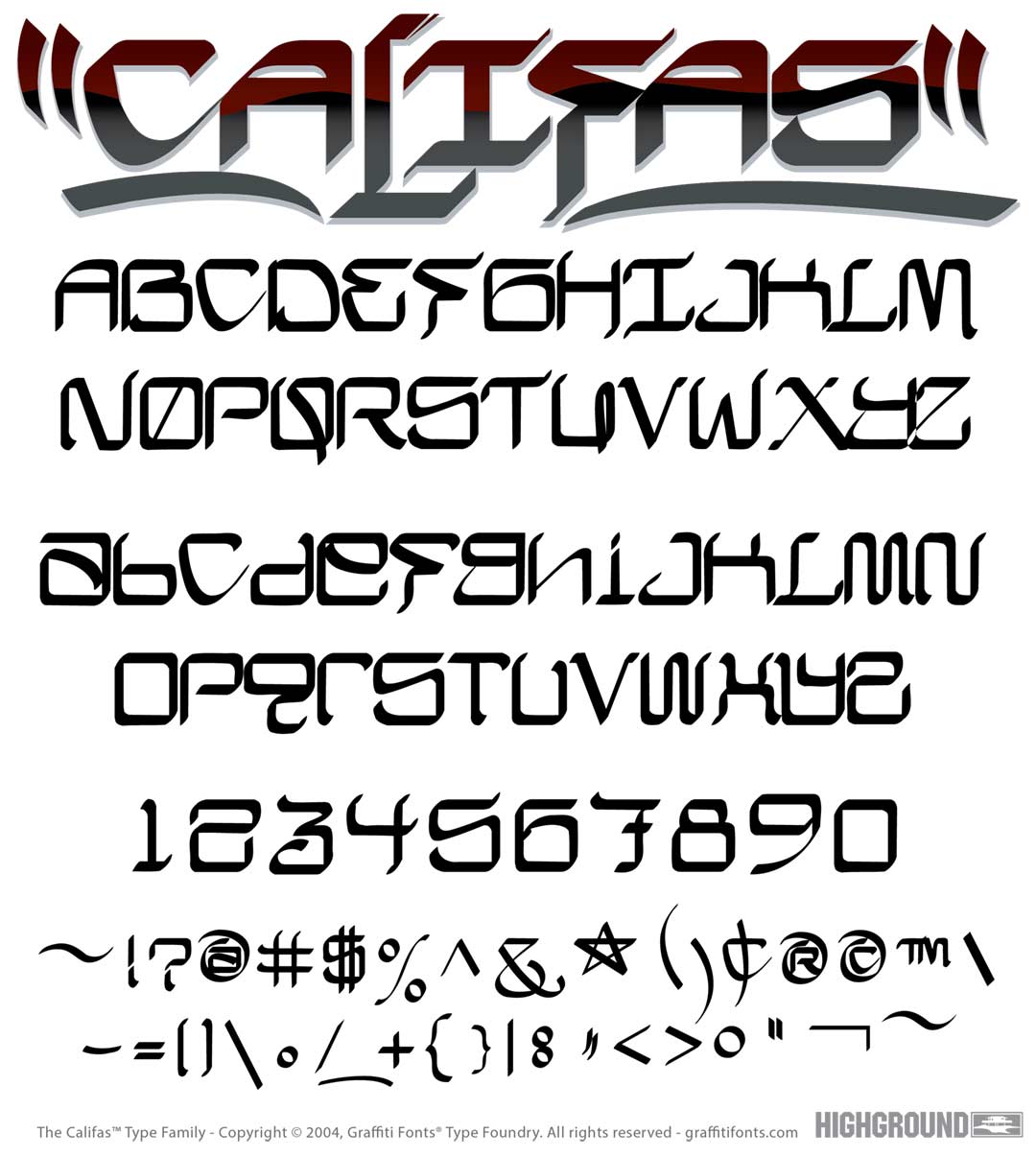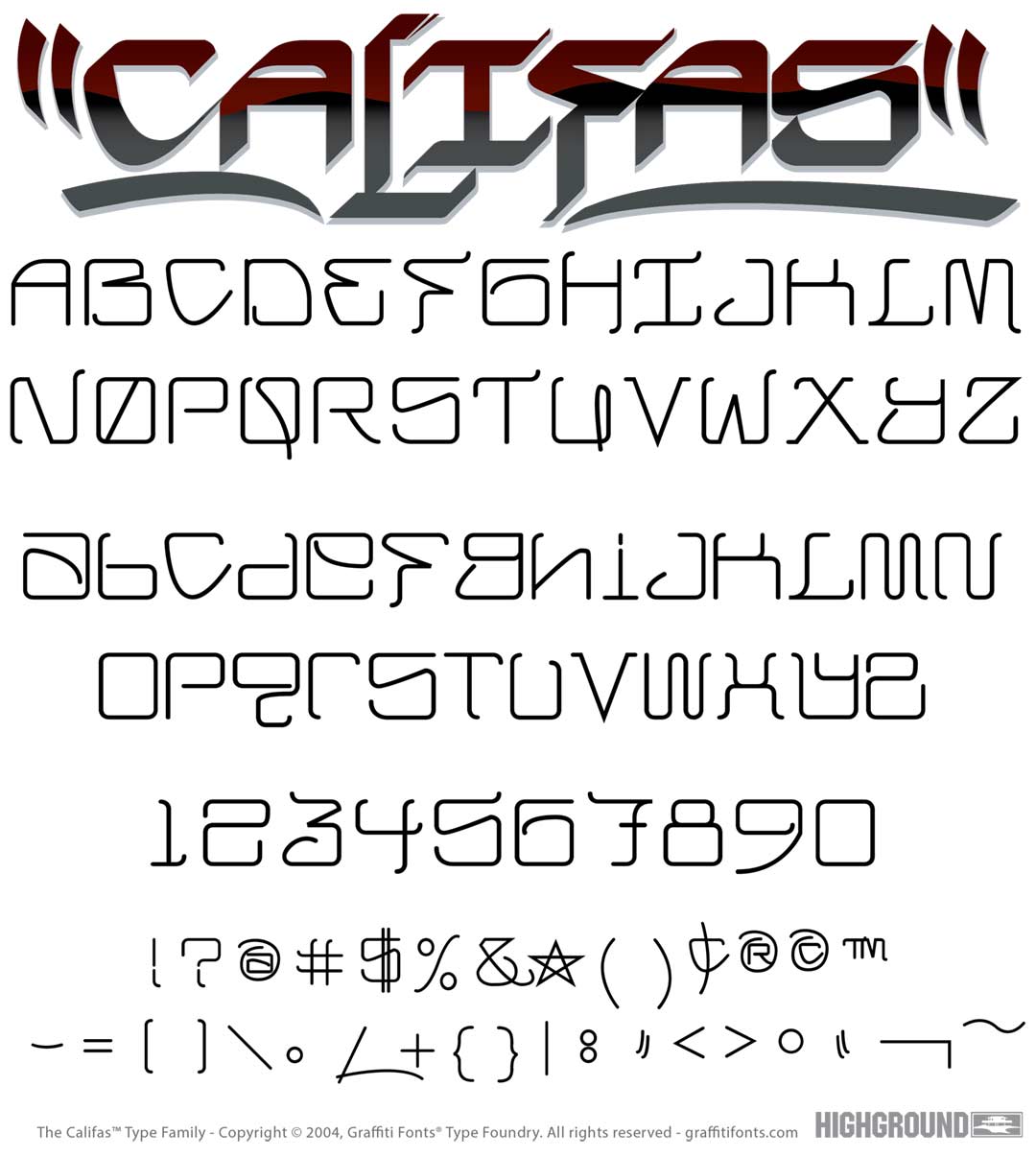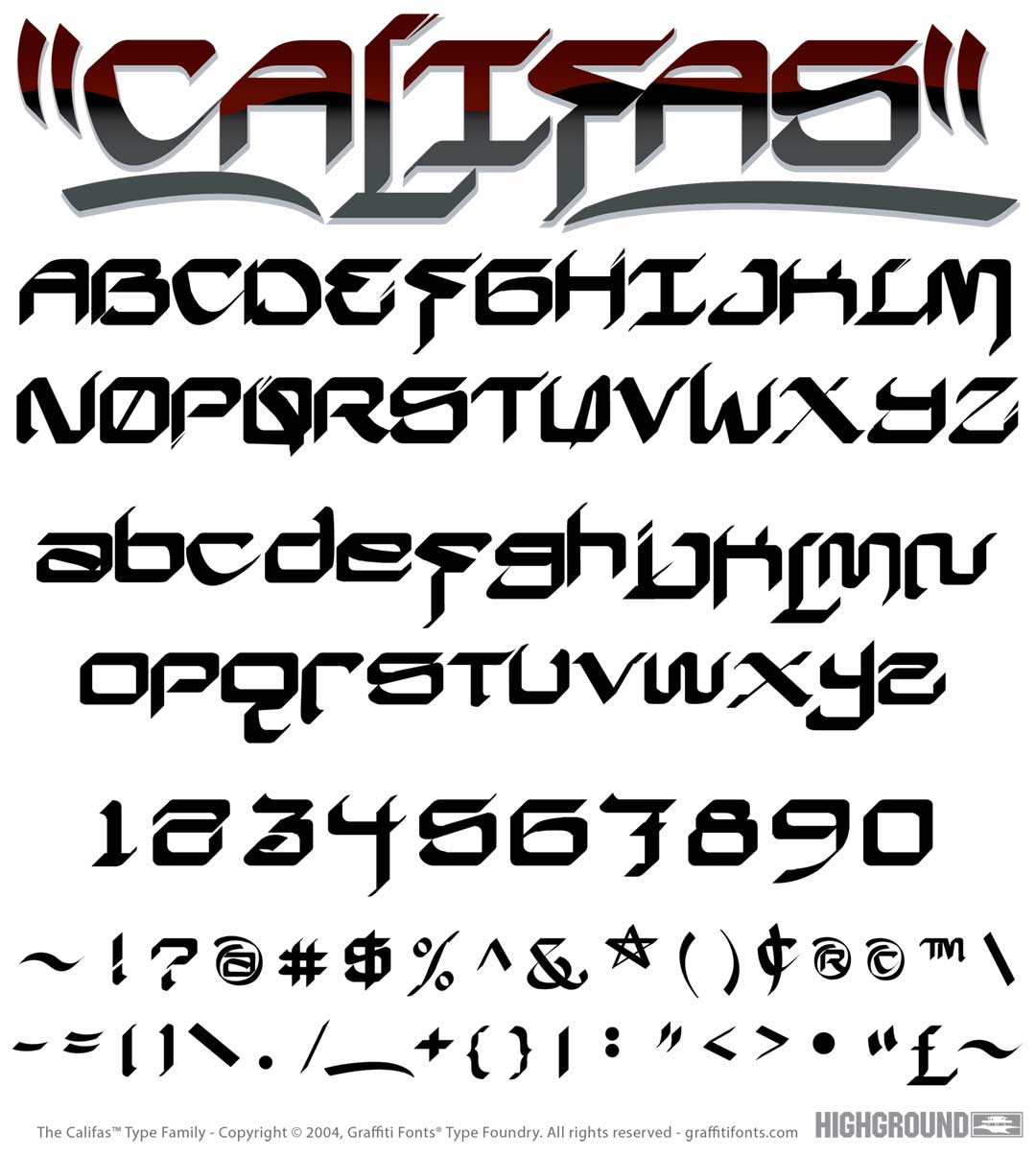
Califas Font
Califas Title Image
Califas Graffiti Alphabet
Califas Graffiti Font Family
Inspired by classic, west coast chicano gangland styles & presented in clean, even, chisel tip strokes. This 143 character typeface includes lowercase & uppercase alphabets as well as all standard punctuation & symbols, numbers, underlines, flourishes & more.